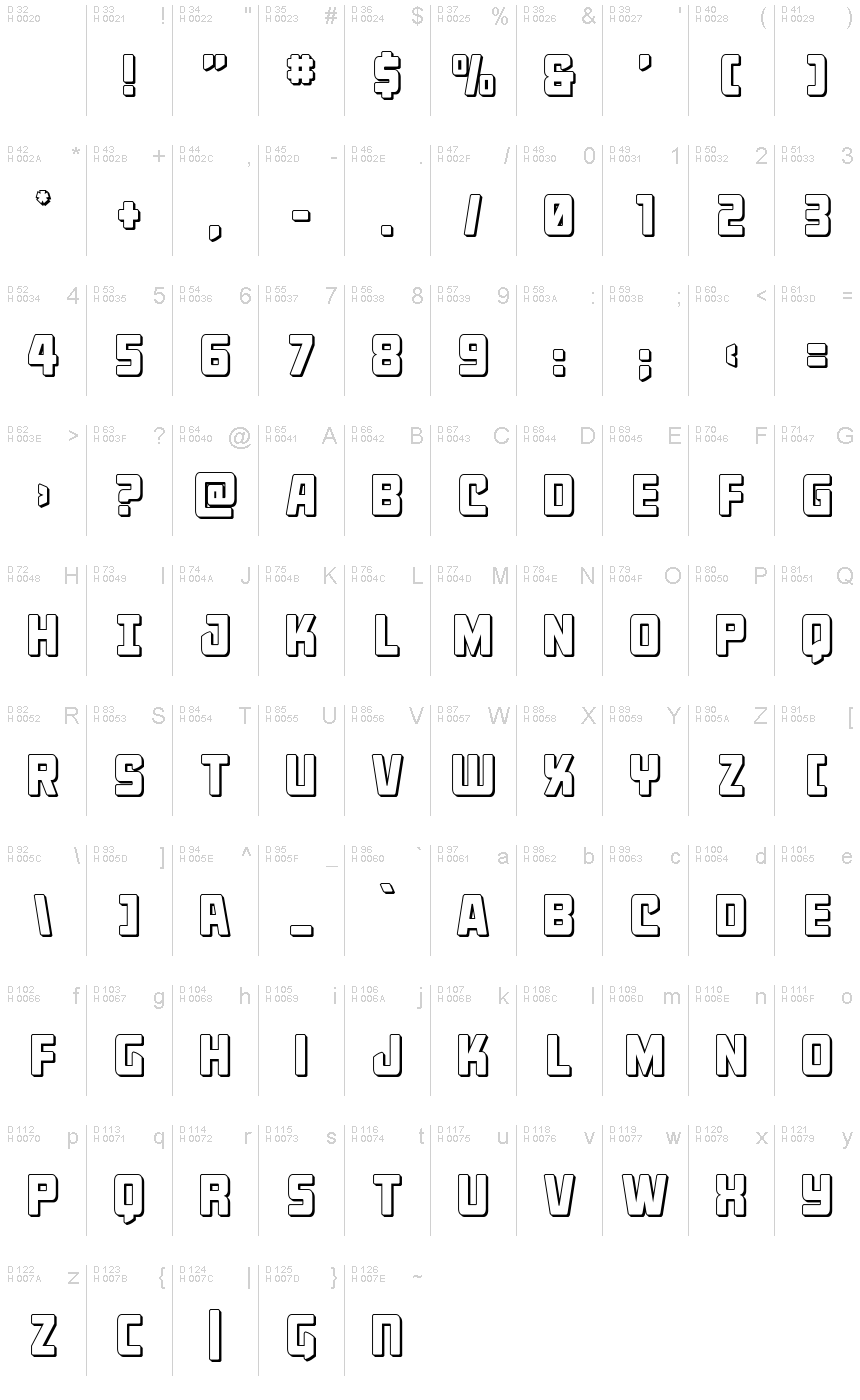
Quicky Nick Straight 3D
Quicky Nick Straight 3D, a bold and captivating display font crafted by Iconian Fonts, exudes a dynamic, three-dimensional techno-inspired aesthetic. The striking letterforms, with their sharp edges and dimensional depth, command attention and evoke a sense of futuristic energy. This font's unique visual style lends itself to a variety of design applications, from eye-catching headers and logos to bold typographic statements.
Quicky Nick Straight 3D's versatility makes it a versatile choice for projects seeking to convey a modern, tech-savvy, or innovative character. Its bold, dimensional appearance can add visual impact to branding, packaging, event promotions, and even digital interfaces, where its legibility and distinctive flair can help content stand out and capture the audience's attention.